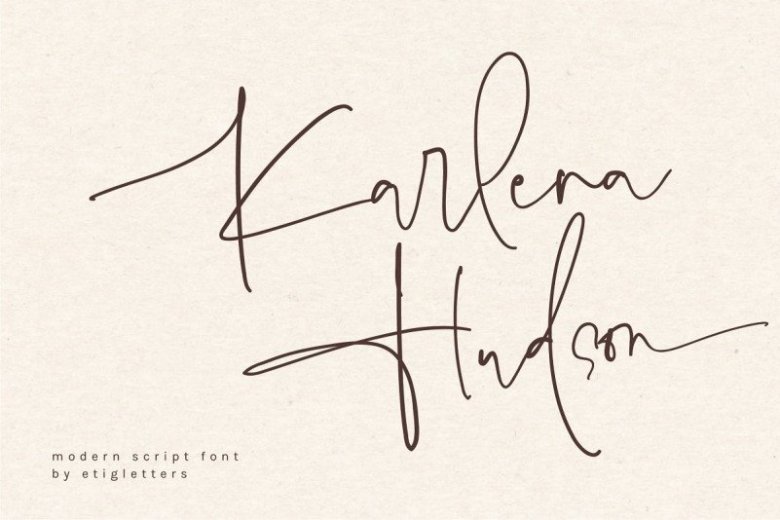
Introducing Karlena Hudson Font. It’s Stylish Signature Font. This is a stylish modern handwritten font with casual handwriting. It’s designed by Etigletters. This beautiful script font is for you who needed an elegance and stylish for your design. It’s perfect for wedding invitation, save the date, branding and other needs.
Karlena Hudson Signature includes a full set of lowercase and uppercase letters, numerals and punctuation, multilingual symbols, lowercase beginning and ending swashes, ligatures. Also it contains ligatures and stylistic alternates.